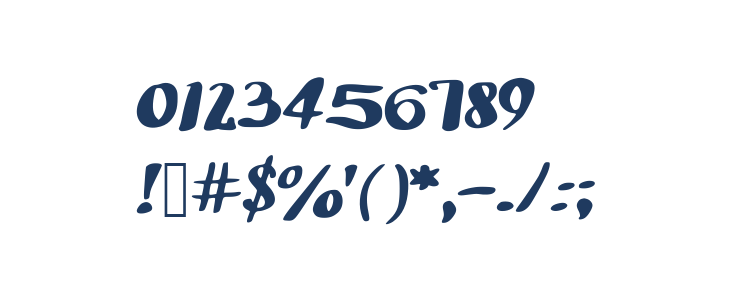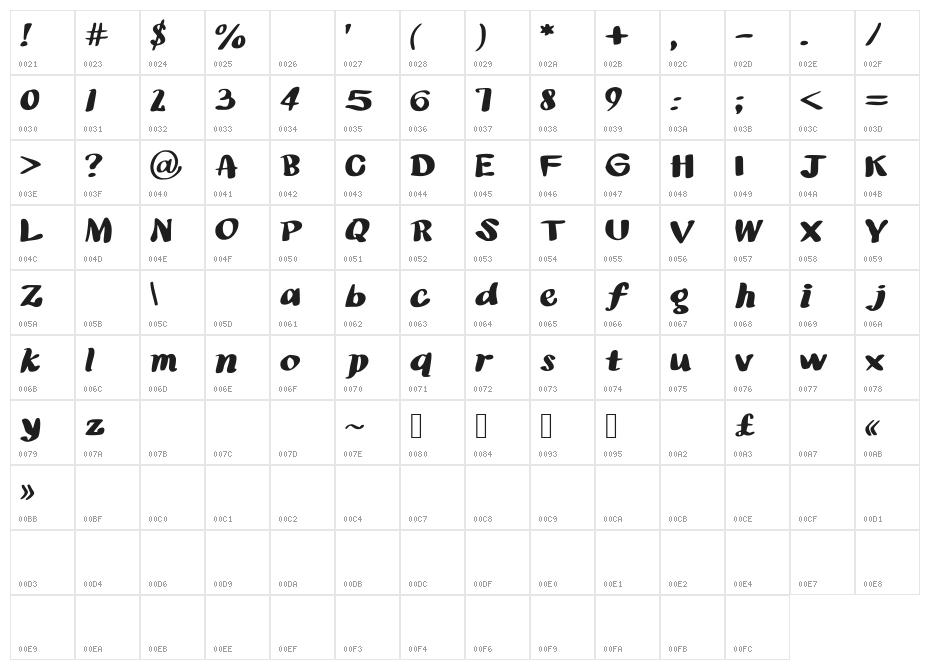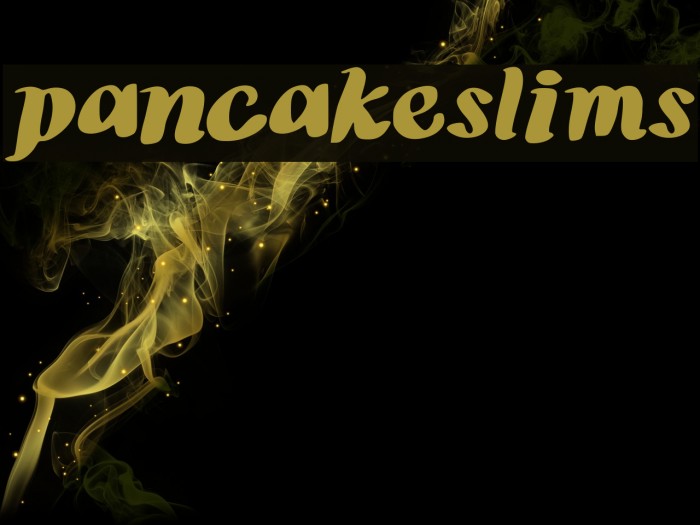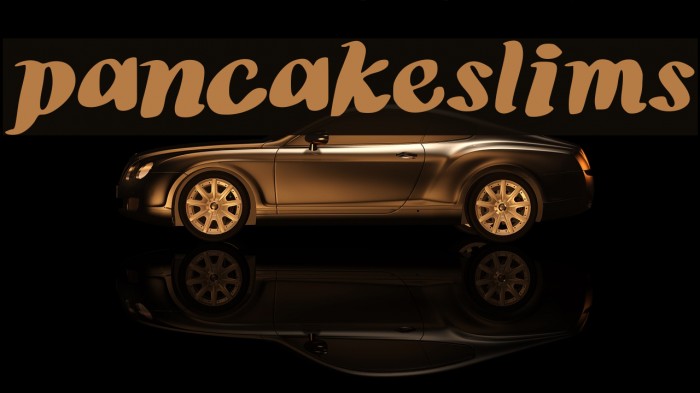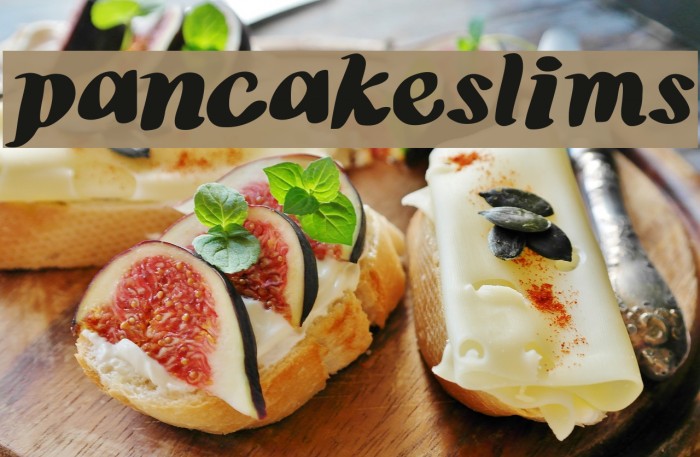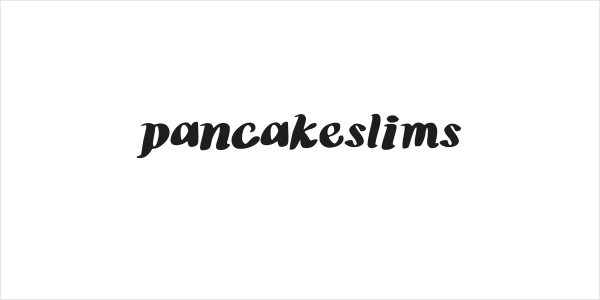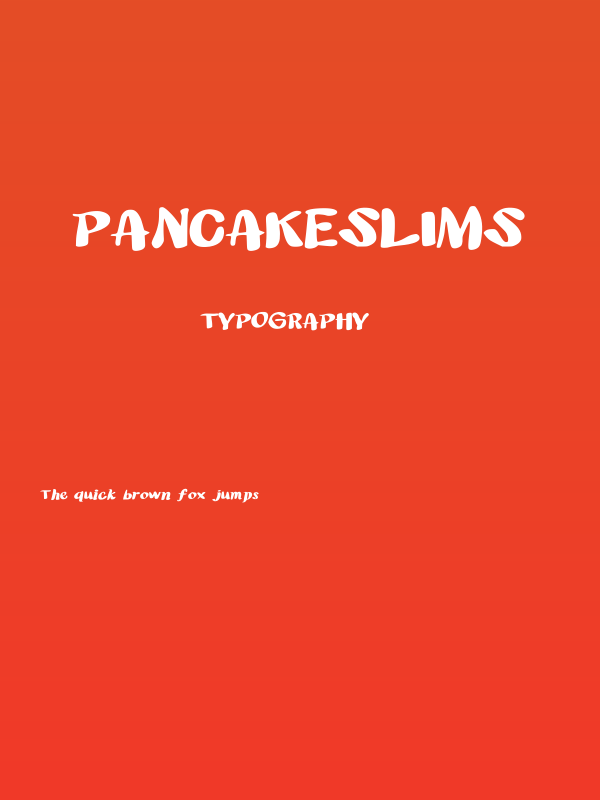
pancakeslims Font
pancakeslims Description
This font features a bold and playful style with a handwritten appearance. The characters are rounded and have a smooth flow, giving them a casual and friendly look. The uppercase and lowercase letters maintain a consistent style, with slightly exaggerated curves and strokes that add to the font's charm. The numbers and special characters are designed to match the overall aesthetic, ensuring a cohesive look across all text. This font's unique style makes it stand out, making it suitable for projects that require a touch of personality and creativity.
| Proposed Projects | Ideal for greeting cards, children's books, playful branding, and casual invitations. |